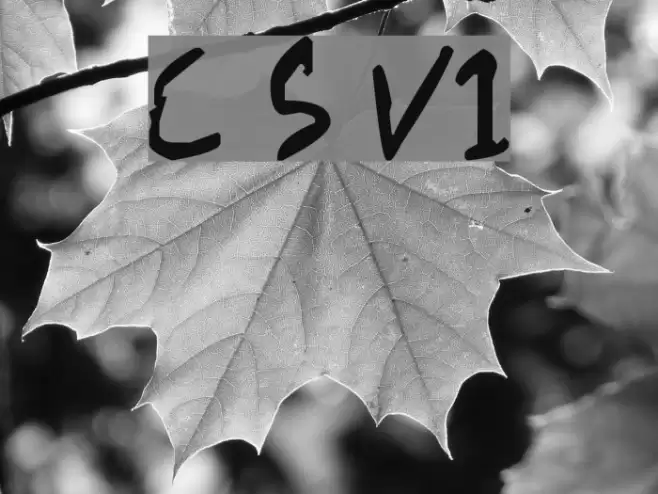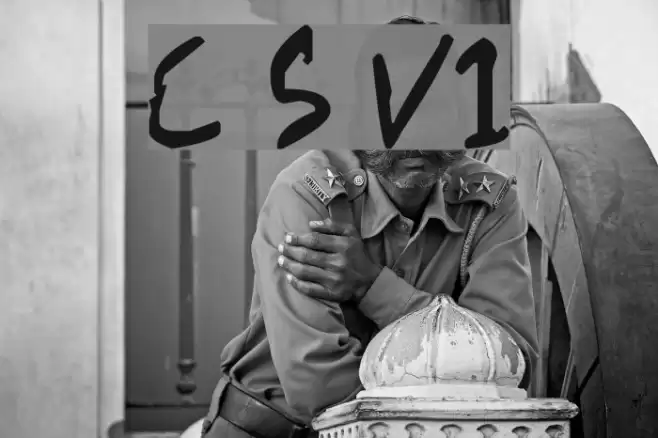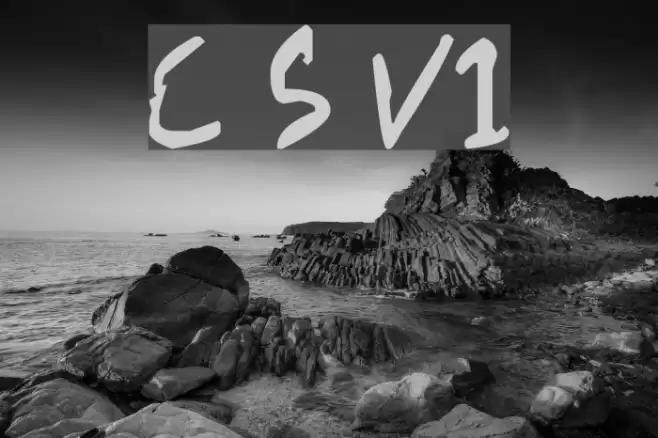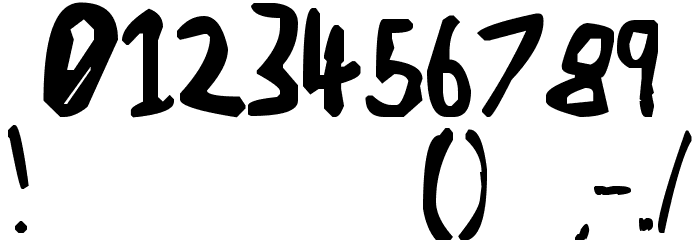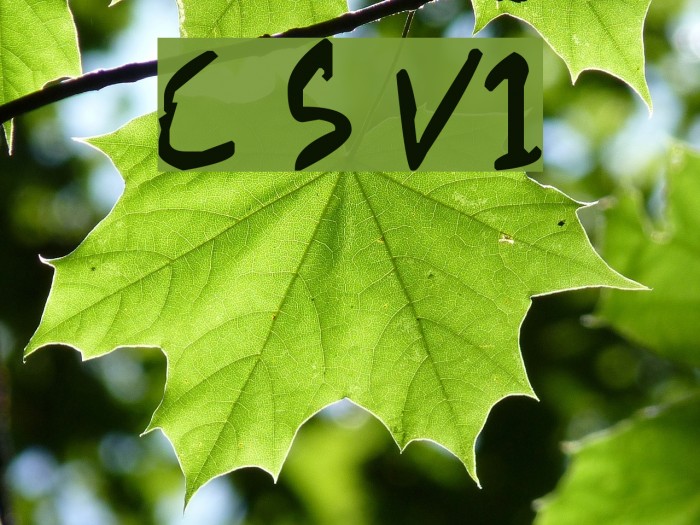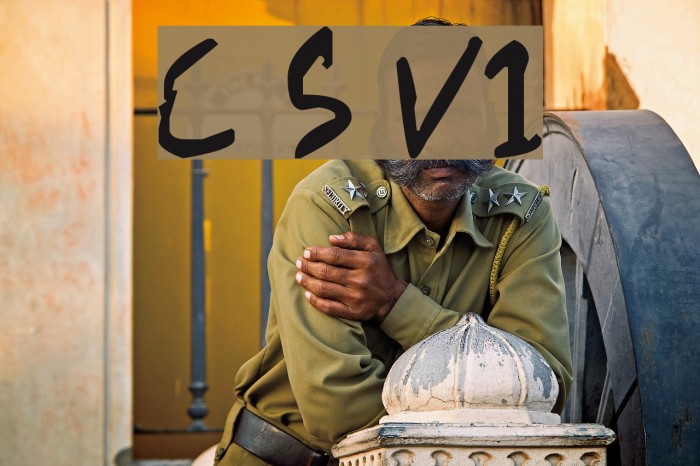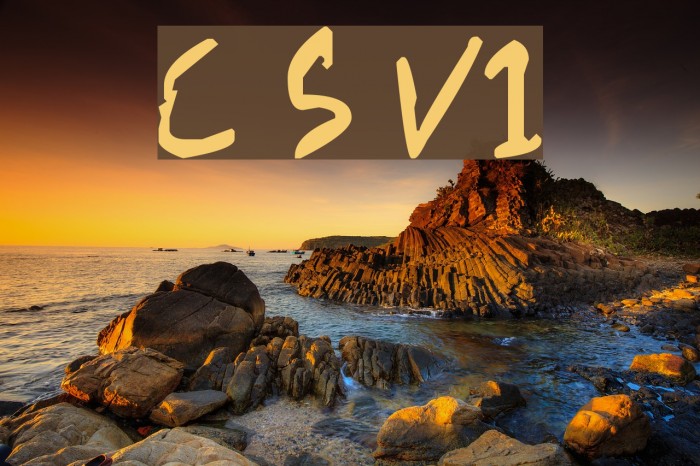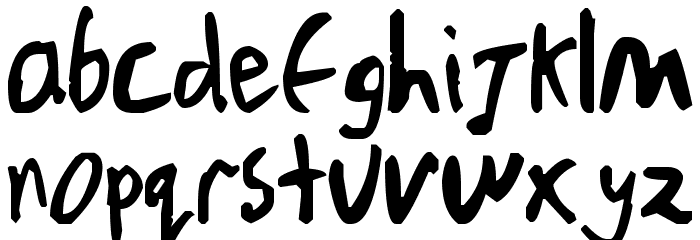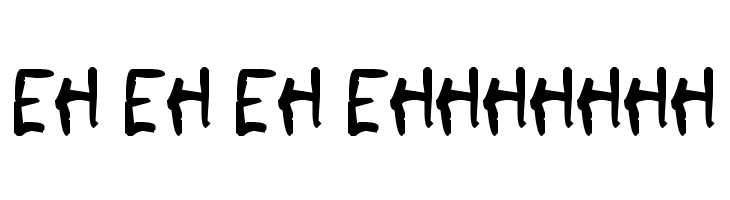
Chicken Scratch V1 Font
Chicken Scratch V1 Description
This font exhibits a playful and informal style, reminiscent of handwriting with a rough, uneven texture. The characters are bold and slightly irregular, giving them a hand-drawn appearance. The uppercase and lowercase letters maintain a consistent style, with exaggerated curves and angles that add to the casual feel. The numbers and special characters follow the same aesthetic, ensuring a cohesive look across all elements. This font is ideal for projects that require a personal touch or a sense of whimsy, such as children's books, casual invitations, or creative branding materials.
A playful, hand-drawn font with a bold, informal style from Handwritten fonts.
- Proposed Projects: Ideal for children's books, casual invitations, creative branding, and playful designs.
- Overall Style: Casual, Playful
- Use Case: Headlines, Informal text, Creative projects